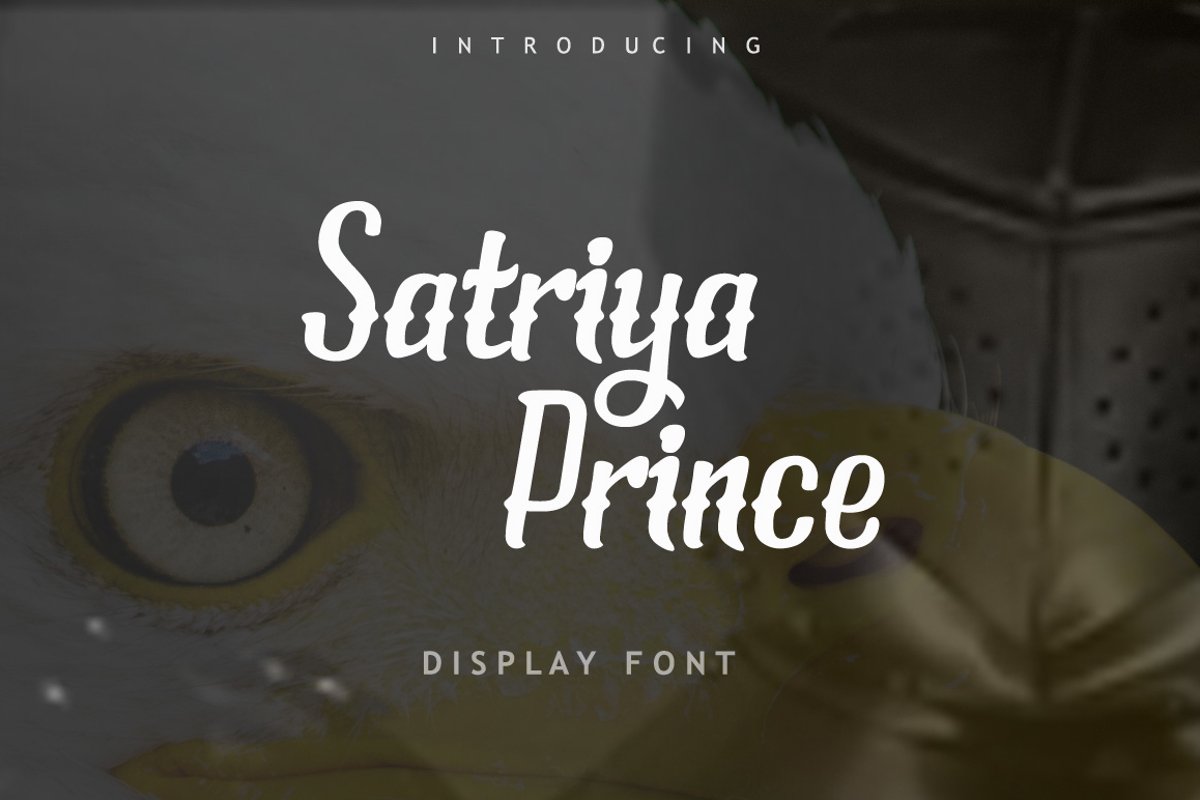
Satriya Prince Font
Satriya Prince is a nice vintage display font.
This font will turn any creative idea into a true standout.
Satriya Prince font is the perfect fit for all of your quotes, logos, branding, social media, and crafty DIY projects etc.
• Uppercase A-Z
• Lowercase a-z
• Numbers 0-9
• Accents
• Punctuation